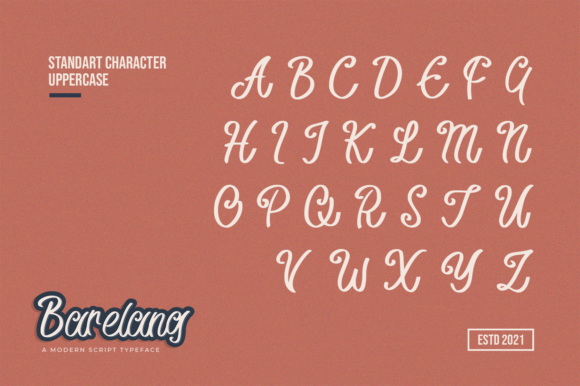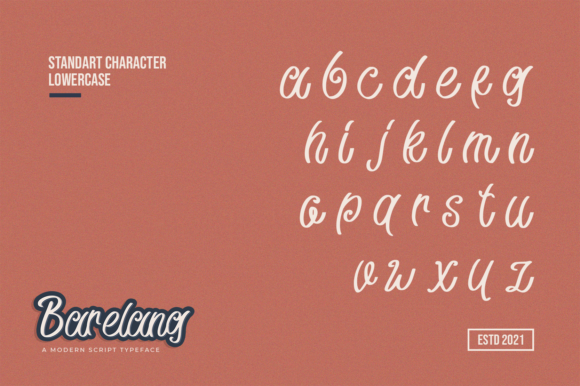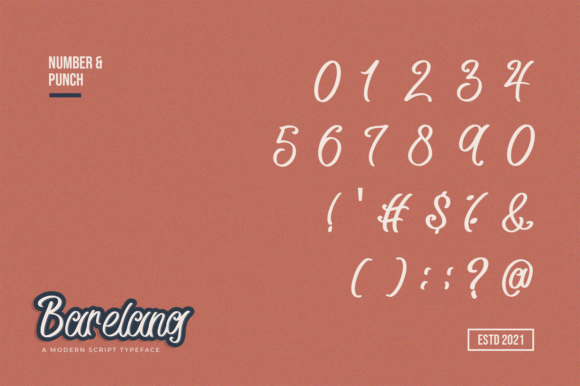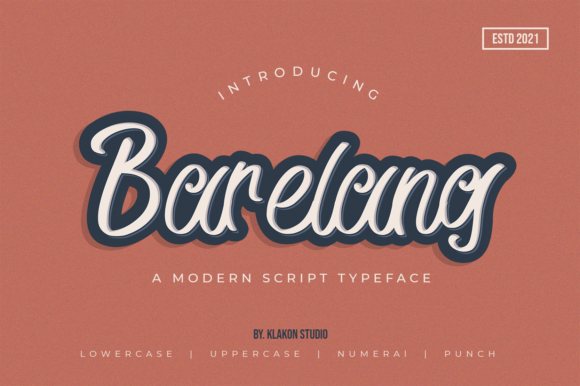
Barelang Font: Elevate Your Designs with a Gorgeous and Bold Handwritten Style
In the world of typography, a font can make or break a design. A well-crafted font can add personality, style, and flair to any project, while a bland or generic font can leave it feeling flat and unremarkable. For designers and crafters looking to add a touch of sophistication and elegance to their work, the Barelang font is an excellent choice. This gorgeous and bold handwritten font is designed to give your headlines and logotype projects a stylish touch that’s sure to turn heads.
The Characteristics of Barelang Font
So, what sets Barelang apart from other fonts? For starters, it’s a bold and confident font that reads as strong and dynamic. The letters are carefully crafted to have a sense of movement and energy, making it perfect for designs that need to grab attention. At the same time, Barelang also has a nostalgic feel that’s hard to ignore. The font’s handwritten style gives it a warm and personal touch that’s reminiscent of classic typography from a bygone era.
One of the standout features of Barelang is its versatility. This font can be used for a wide range of design projects, from logos and headlines to packaging and branding. Its bold and confident style makes it perfect for designs that need to make a statement, while its nostalgic charm makes it suitable for projects that require a touch of vintage flair.
Why Choose Barelang Font?
With so many fonts to choose from, why should designers and crafters choose Barelang? For one, the font’s unique style and character can add a level of sophistication and elegance to any design. Whether you’re working on a high-end branding project or a personal craft project, Barelang can help you create something truly special.
Another reason to choose Barelang is its ease of use. The font is carefully crafted to be easy to read and understand, making it perfect for designs that need to communicate a message quickly and effectively. Additionally, Barelang is highly legible, even at small sizes, making it suitable for use in a wide range of applications.
How to Use Barelang Font in Your Designs
So, how can you use Barelang in your designs? Here are a few ideas to get you started:
- Logos and Branding: Use Barelang to create a bold and memorable logo that’s sure to stand out. The font’s confident and dynamic style makes it perfect for businesses that want to make a statement.
- Headlines and Titles: Add a touch of elegance and sophistication to your headlines and titles with Barelang. The font’s bold and confident style is perfect for grabbing attention and drawing the reader in.
- Packaging and Labeling: Use Barelang to add a touch of vintage flair to your packaging and labeling designs. The font’s nostalgic charm is perfect for products that want to evoke a sense of classic style.
Tips and Tricks for Getting the Most Out of Barelang
Here are a few tips and tricks for getting the most out of Barelang:
- Experiment with Different Sizes: Barelang is highly legible, even at small sizes, so don’t be afraid to experiment with different sizes to find the one that works best for your design.
- Pair with Other Fonts: Barelang pairs well with a wide range of fonts, so try pairing it with other fonts to create a unique and interesting design.
- Use in Combination with Images: Barelang looks great in combination with images, so try using it to add a touch of elegance and sophistication to your designs.
In conclusion, Barelang font is a gorgeous and bold handwritten font that’s perfect for designers and crafters looking to add a touch of sophistication and elegance to their work. With its confident and dynamic style, nostalgic charm, and versatility, Barelang is an excellent choice for a wide range of design projects. Whether you’re working on a high-end branding project or a personal craft project, Barelang is sure to help you create something truly special.